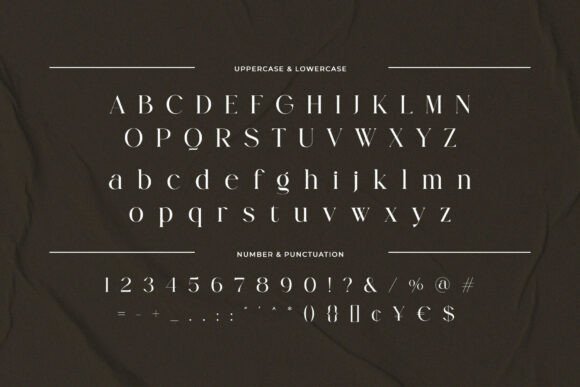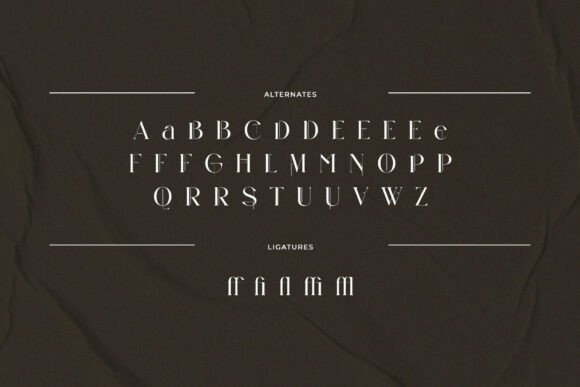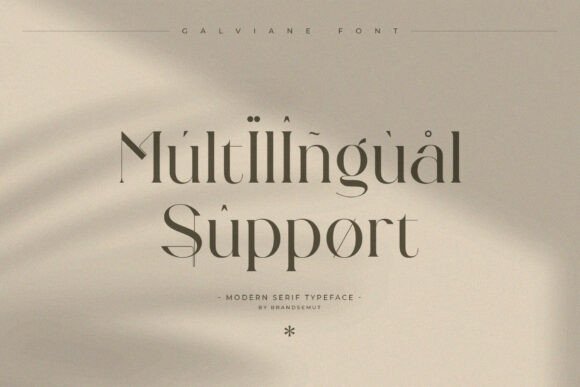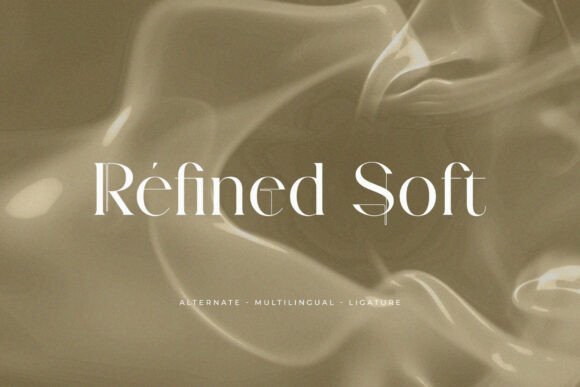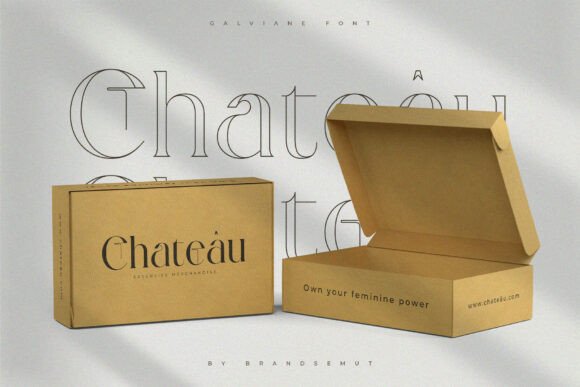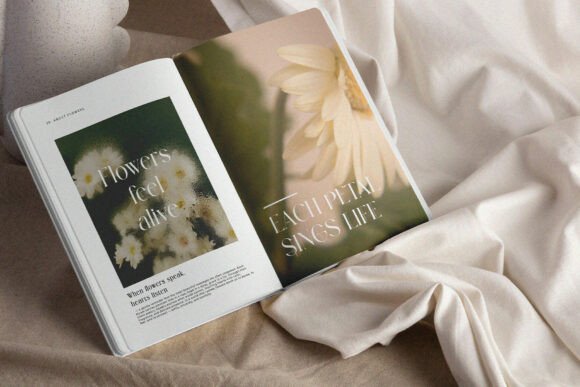
Introducing Galviane Font: Elevate Your Designs with Elegance and Sophistication
In the world of typography, a well-crafted font can make all the difference in elevating your designs to new heights. For designers and crafters seeking a high-fashion modern serif typeface that exudes elegance and sophistication, look no further than Galviane Font. This stunning typeface seamlessly blends structured elegance with creative expression, making it the perfect choice for bold editorial design, stylish branding, and high-end print layouts.
Key Features of Galviane Font
Galviane Font boasts an impressive array of features that set it apart from other typefaces. Some of its key characteristics include:
- Full Uppercase and Lowercase Characters: Galviane offers a comprehensive set of uppercase and lowercase characters, ensuring versatility and flexibility in your designs.
- Sophisticated Alternates and Ligatures: The font includes a range of sophisticated alternates and ligatures, allowing you to add a touch of creativity and flair to your typography.
- Modern Serif Design: Galviane’s modern serif design ensures a sleek and contemporary look that’s perfect for high-end applications.
Perfect for Editorial Design, Branding, and Print Layouts
Galviane Font is specifically designed to excel in a variety of applications, including:
- Editorial Design: Make a statement with bold, eye-catching headlines and elegant body copy that demands attention.
- Stylish Branding: Elevate your brand’s visual identity with a sophisticated typeface that exudes luxury and refinement.
- High-End Print Layouts: Create stunning print materials, such as luxury magazines, high-end catalogs, and exclusive invitations, that showcase your brand’s commitment to quality and style.
Why Choose Galviane Font?
With so many typefaces available, why choose Galviane Font? Here are just a few compelling reasons:
- Unique Blend of Elegance and Creativity: Galviane offers a distinctive combination of structured elegance and creative expression, making it perfect for designers seeking a sophisticated typeface.
- High-Quality Typography: The font is meticulously crafted to ensure exceptional quality and attention to detail, guaranteeing a professional finish in your designs.
- Versatility: With its comprehensive character set and range of alternates and ligatures, Galviane Font is an incredibly versatile typeface that can be used in a wide range of applications.
Tips for Using Galviane Font Effectively
To get the most out of Galviane Font, consider the following tips:
- Experiment with Alternates and Ligatures: Take advantage of Galviane’s sophisticated alternates and ligatures to add visual interest and creativity to your typography.
- Mix and Match Font Sizes: Combine Galviane Font with other typefaces or use different font sizes to create visual hierarchy and emphasize key elements in your design.
- Pay Attention to Kerning and Leading: Ensure optimal kerning and leading to guarantee a polished, professional finish in your designs.
Galviane Font is a truly exceptional typeface that offers a unique blend of elegance, sophistication, and creative expression. With its comprehensive character set, sophisticated alternates and ligatures, and modern serif design, it’s the perfect choice for designers and crafters seeking to elevate their designs to new heights. Whether you’re working on editorial design, branding, or high-end print layouts, Galviane Font is sure to make a lasting impression.